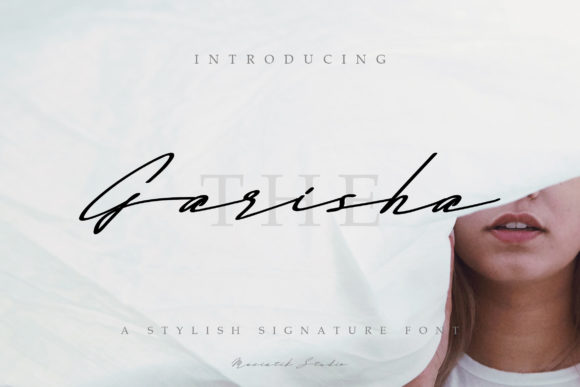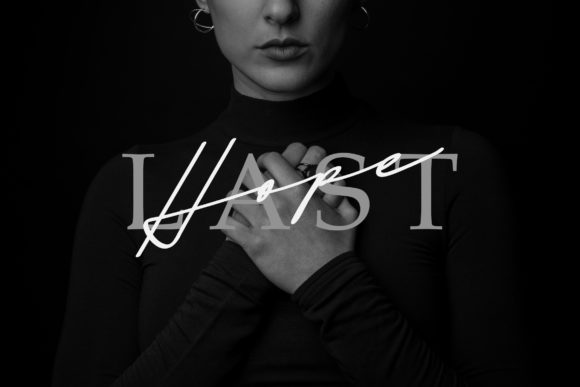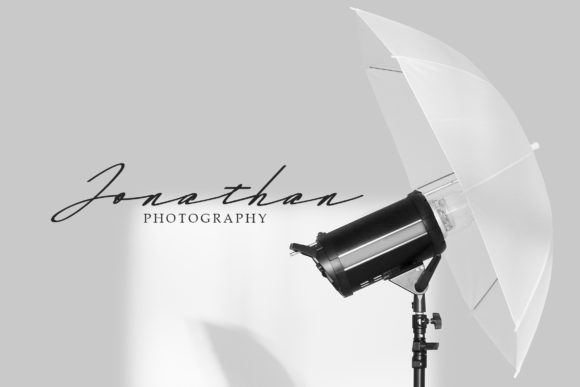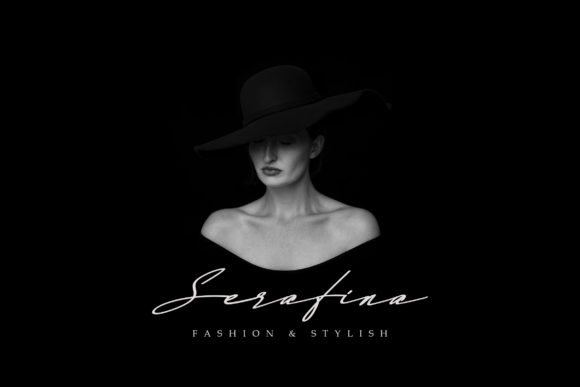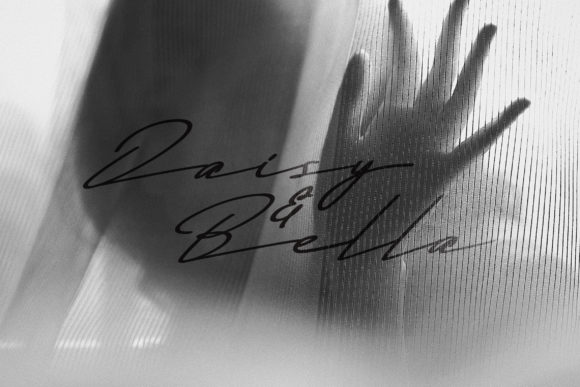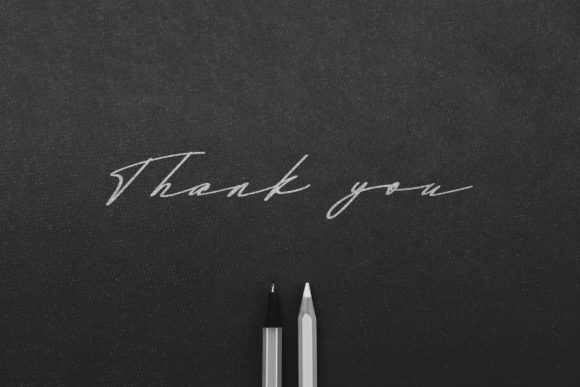
The Garisha Font
About The Garisha Font
The Garisha is a signature font script that is perfect for a variety of projects. Get inspired by its elegant style!